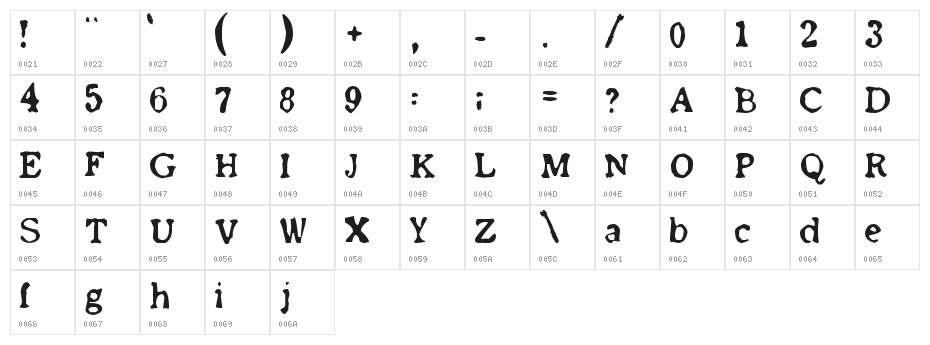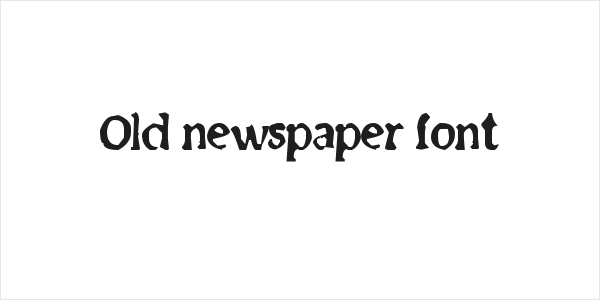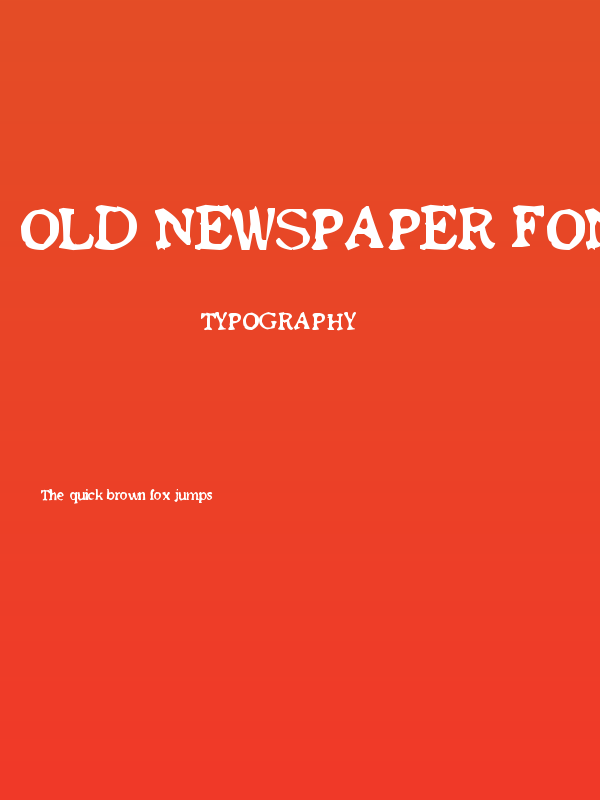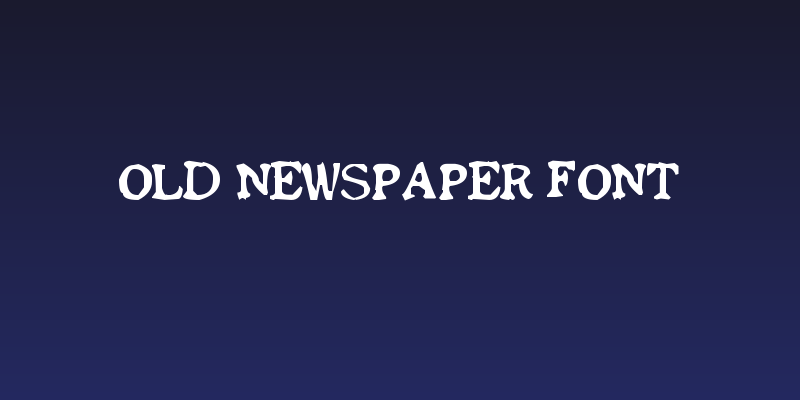
This font exudes a vintage charm reminiscent of old newspapers, characterized by its bold and slightly irregular strokes. The uppercase letters have a strong presence with distinct serifs, while the lowercase letters maintain a consistent flow, adding to the font's readability. The numbers are robust and match the overall aesthetic, making them suitable for impactful displays. Special characters are uniquely styled, enhancing the font's decorative appeal. The overall design captures a historical essence, making it ideal for projects that require an antique or nostalgic touch.
| Use Case | Headlines, Logos, Decorative text |
| Proposed Projects | Ideal for vintage-themed posters, historical publications, retro branding, and decorative headlines. |